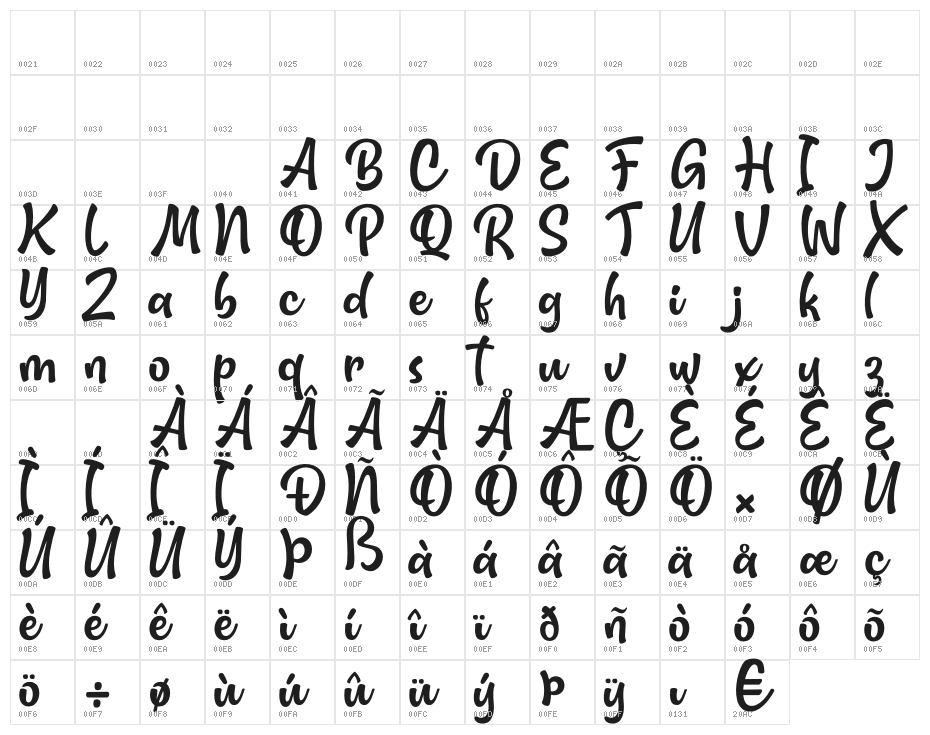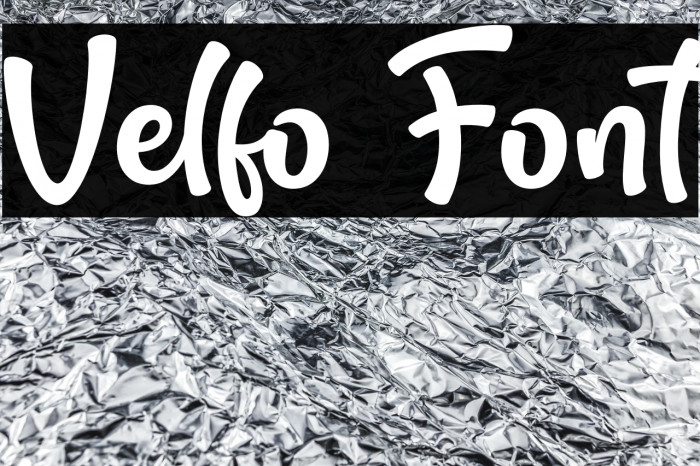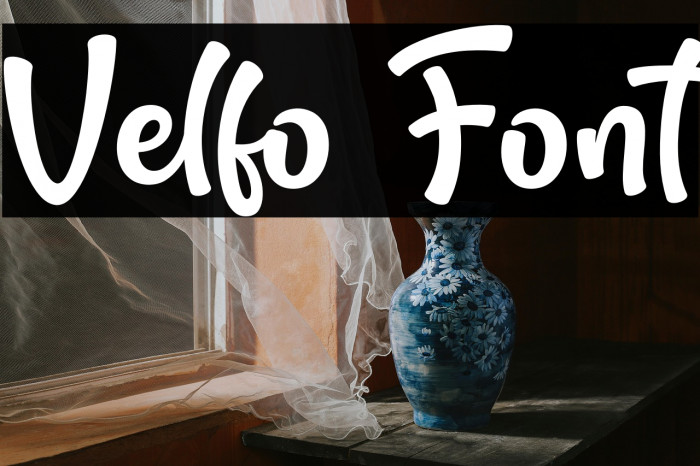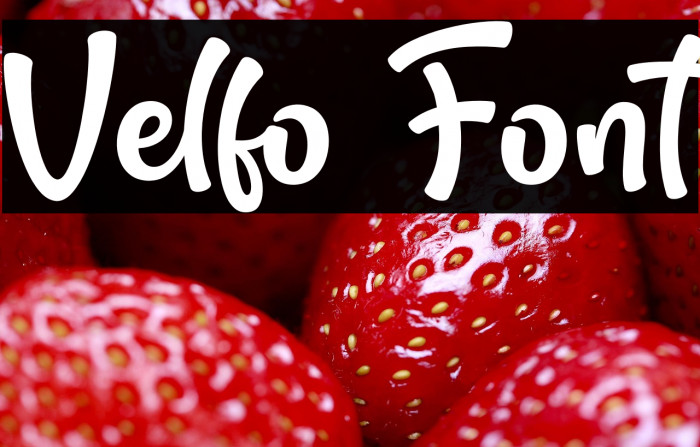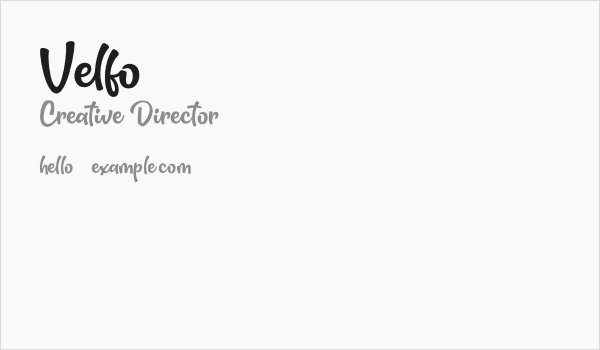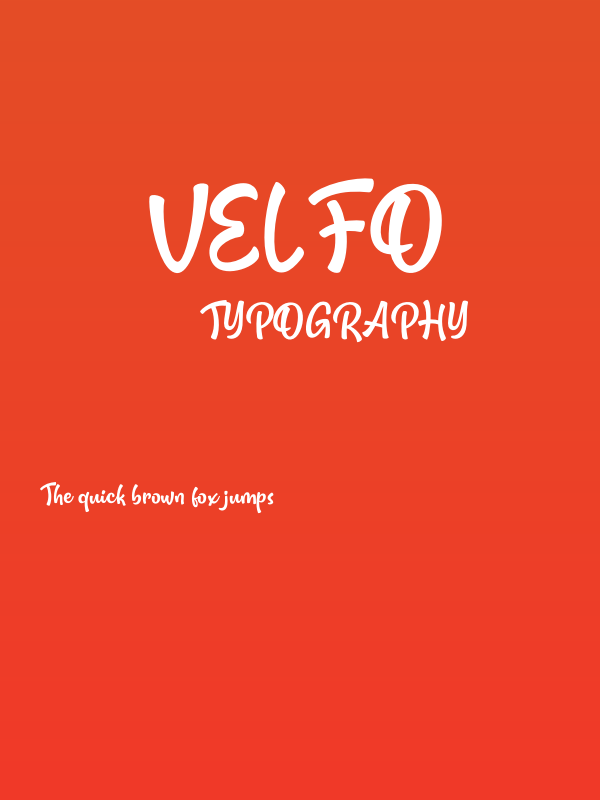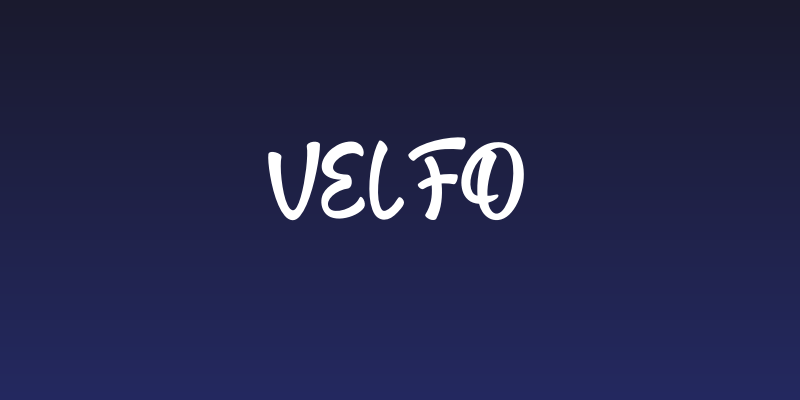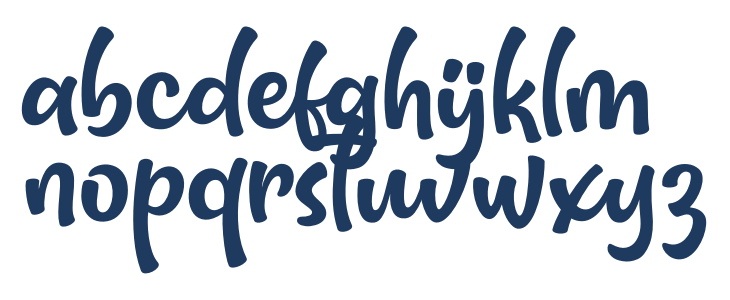
Velfo Font
Velfo Description
This font features a playful and dynamic script style, characterized by its bold, flowing strokes and a handwritten appearance. The uppercase letters exhibit a lively, cursive form with a slight slant, while the lowercase letters maintain a consistent, rounded shape that enhances readability. The numerals and special characters follow the same energetic style, making them suitable for creative and informal designs. The overall design is both expressive and approachable, ideal for projects that require a personal touch.
| Use Case | Logos, Headlines, Invitations |
| Proposed Projects | Ideal for greeting cards, invitations, personal branding, and creative posters. |